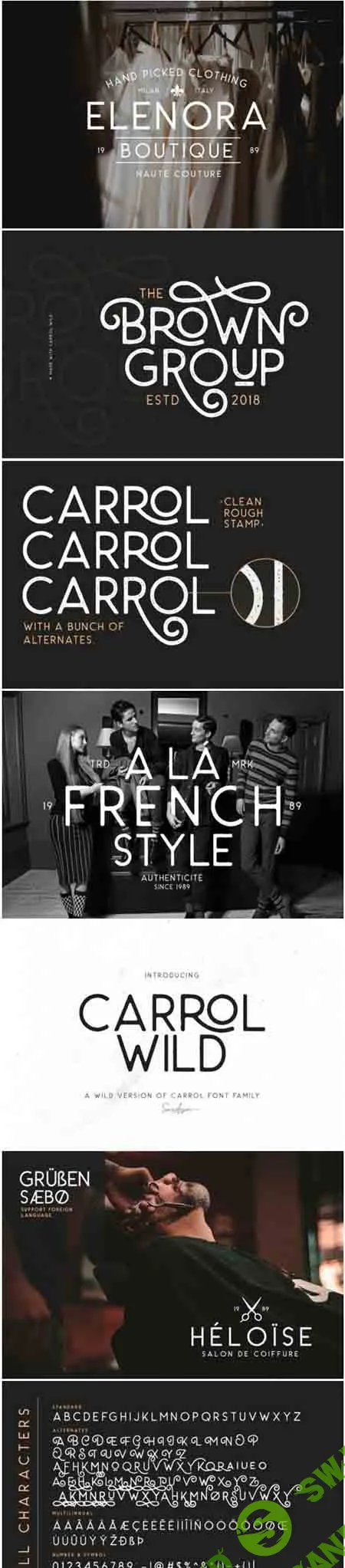
Название: Carrol Wild Font
Carrol Wild Font
Описание:
The Carrol Wild is a wild and modern sans with a bunch of alternates. Every alphabet has alternates up to 6 kinds! It can be used for logos, quotes, or become a pairing in any script font.